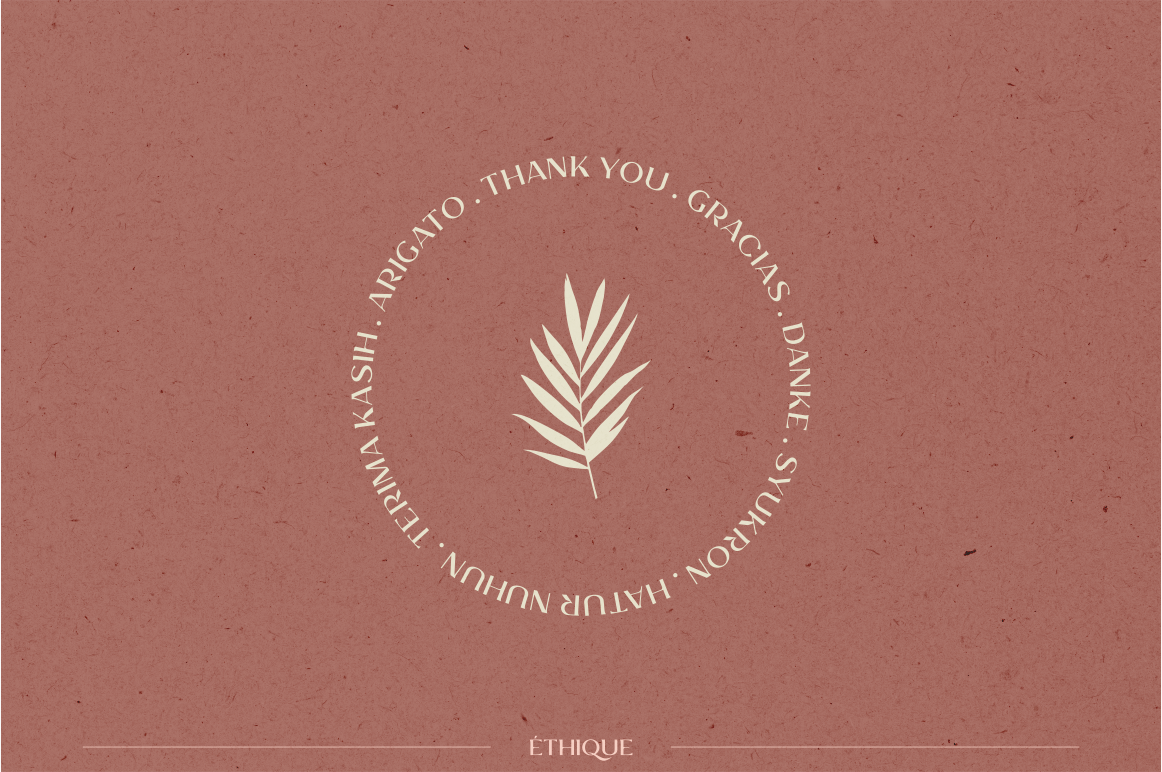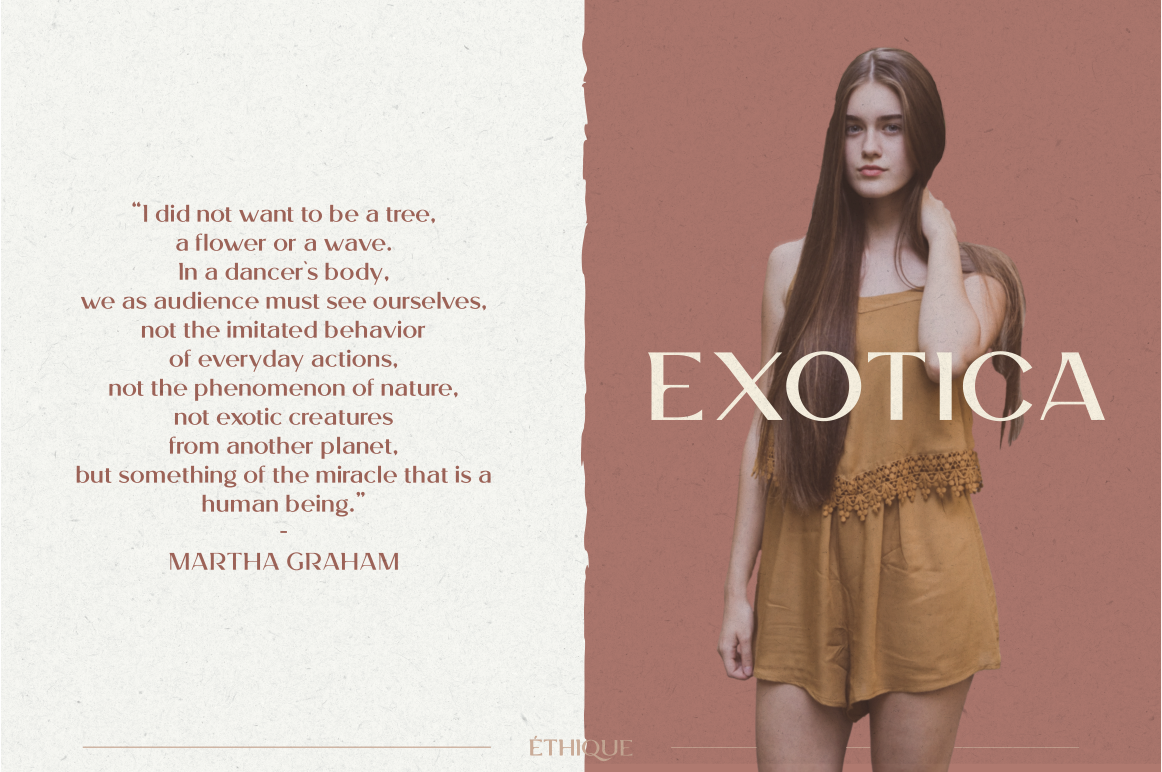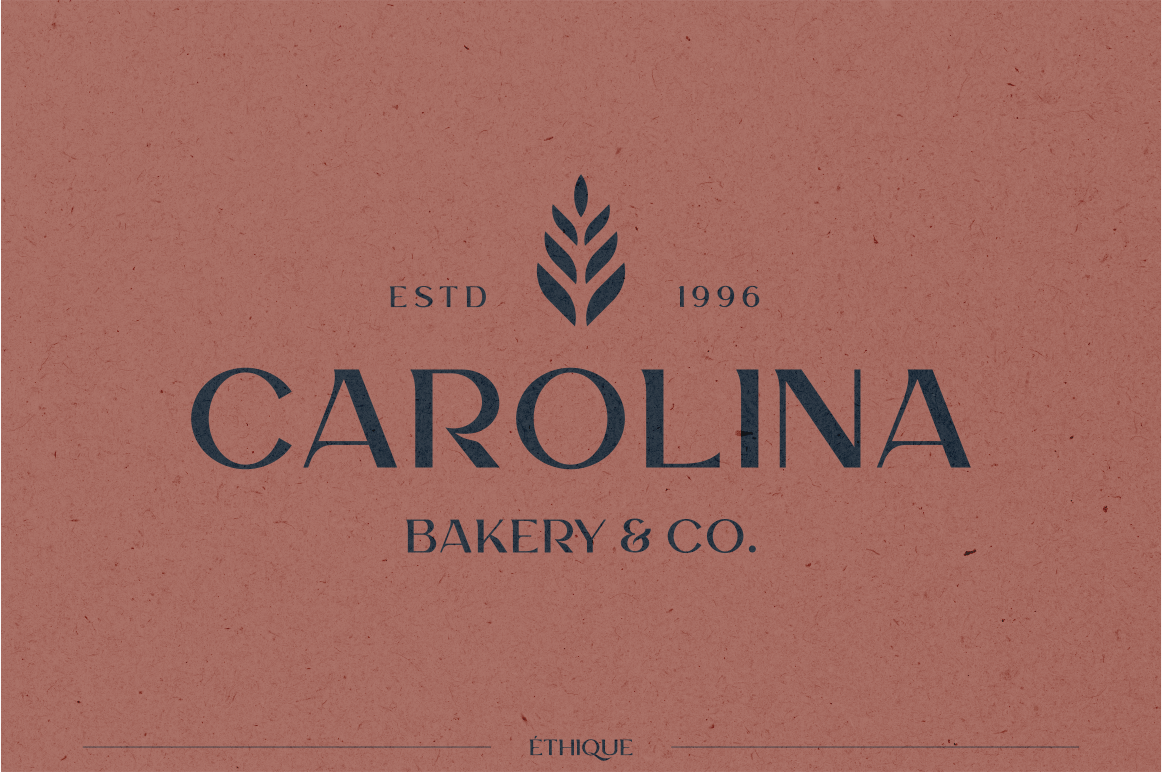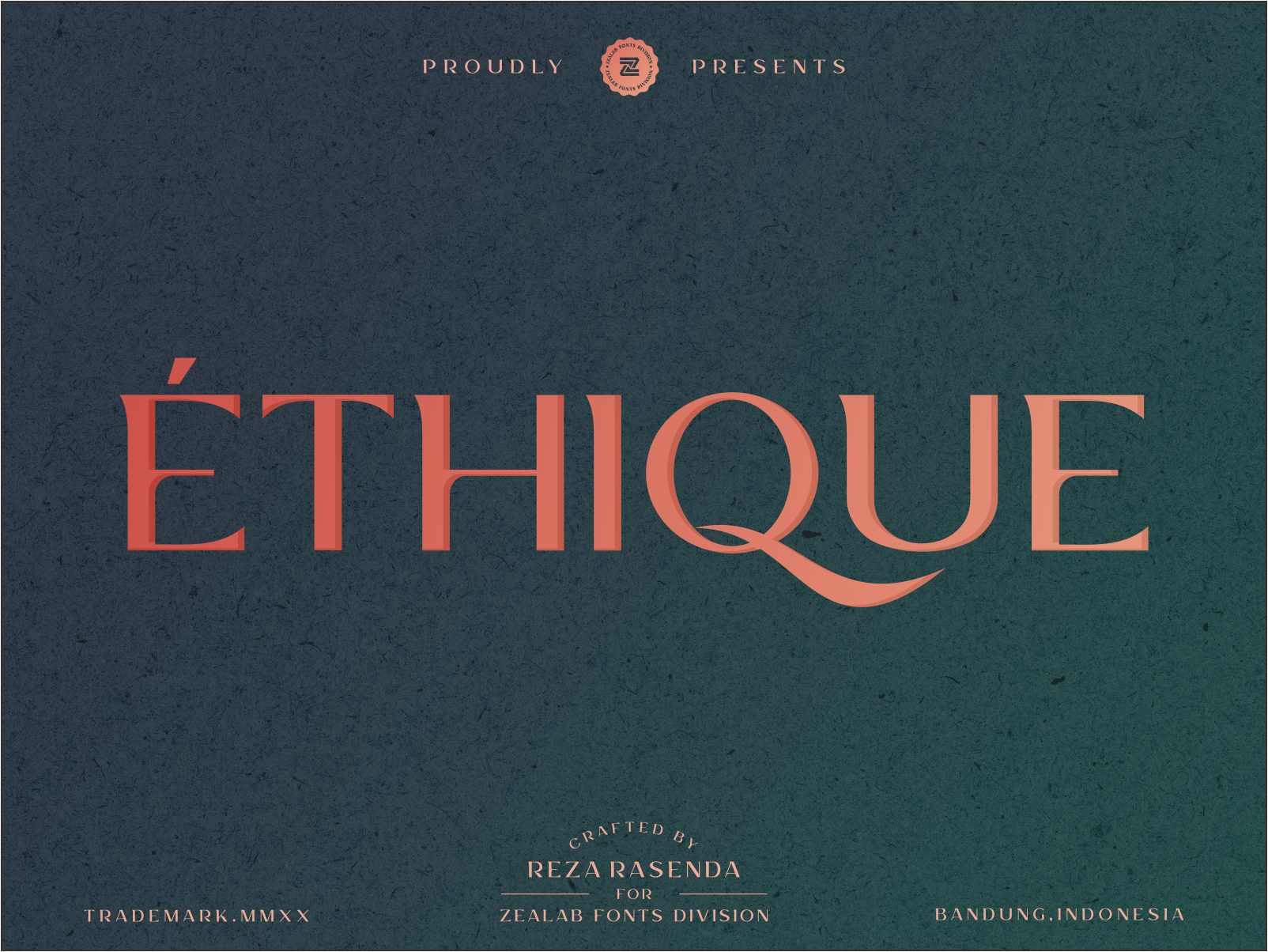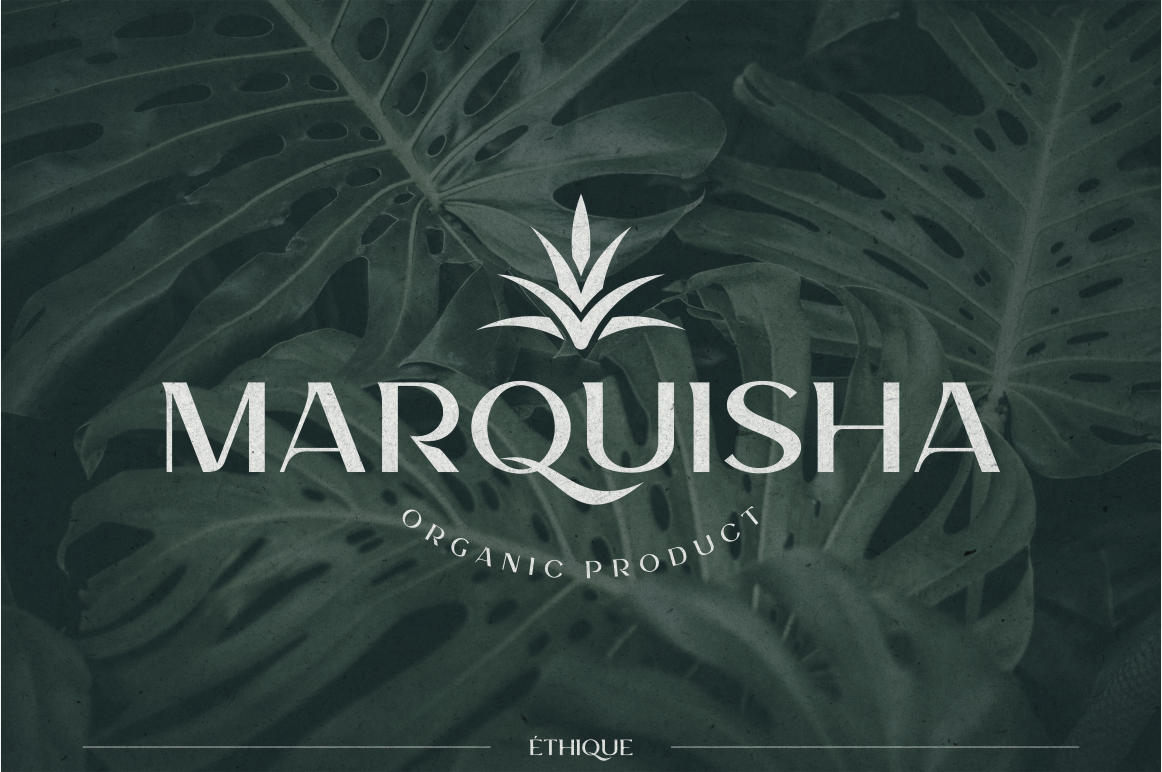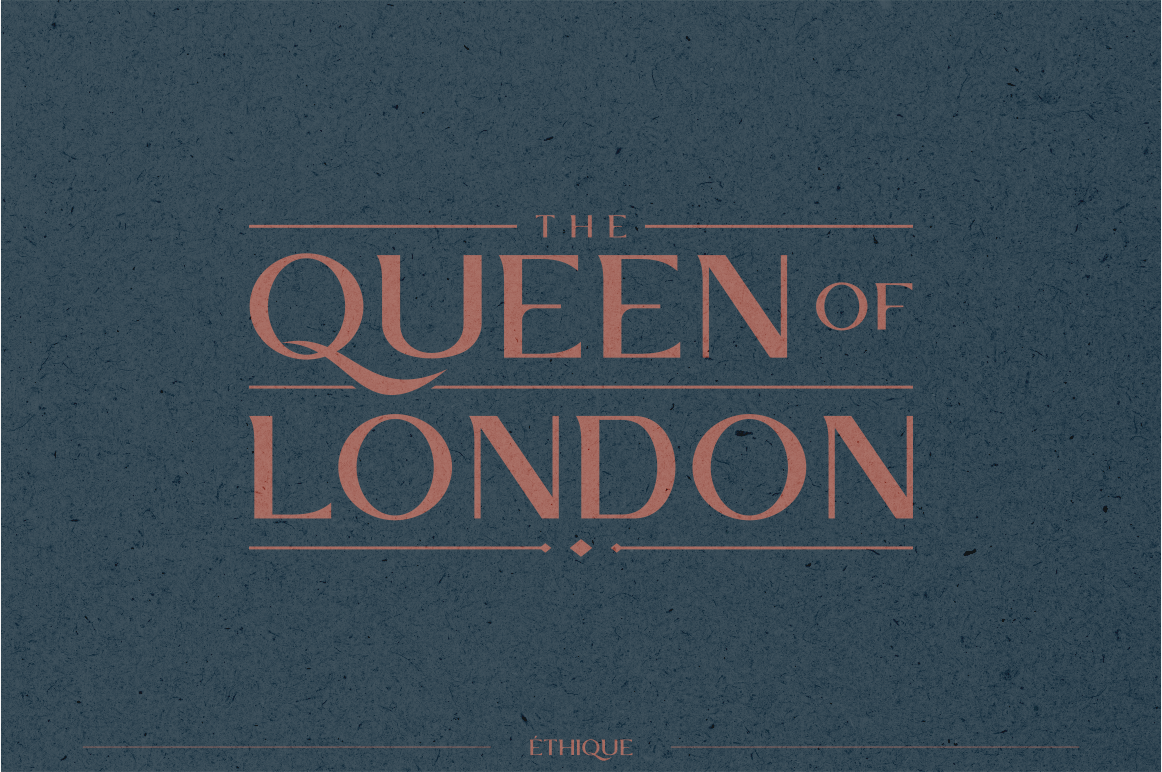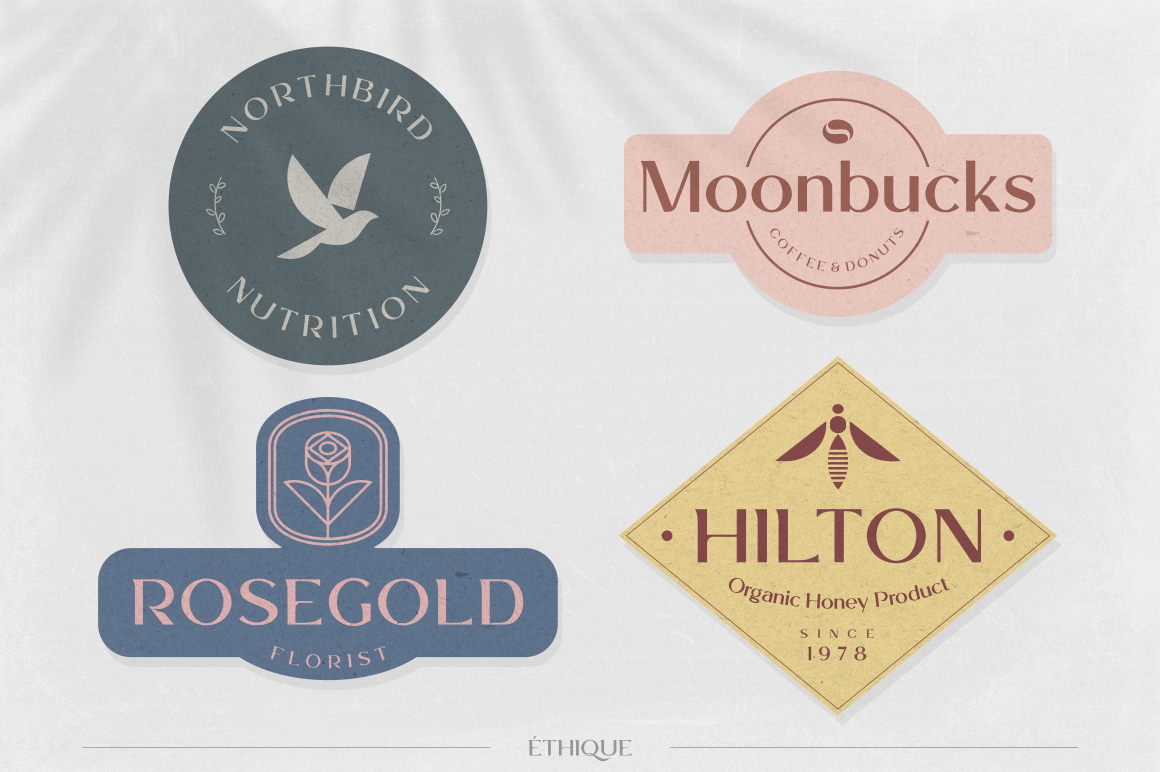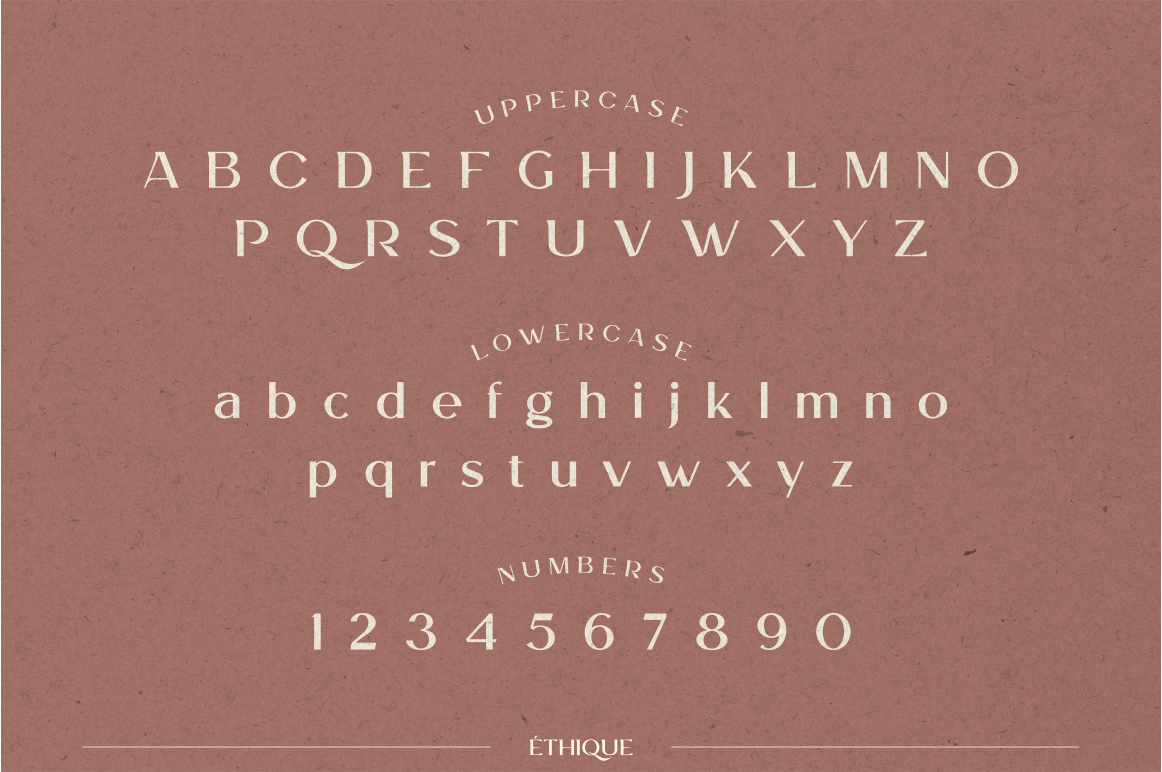
ETHIQUE | Elegant Font
ELEGANT AND LUXURIOUS FONT CALLED ETHIQUE.
Introducing our newest font called ETHIQUE, elegant and luxury font. you can use it as headline, poster, logo, branding, and many more.